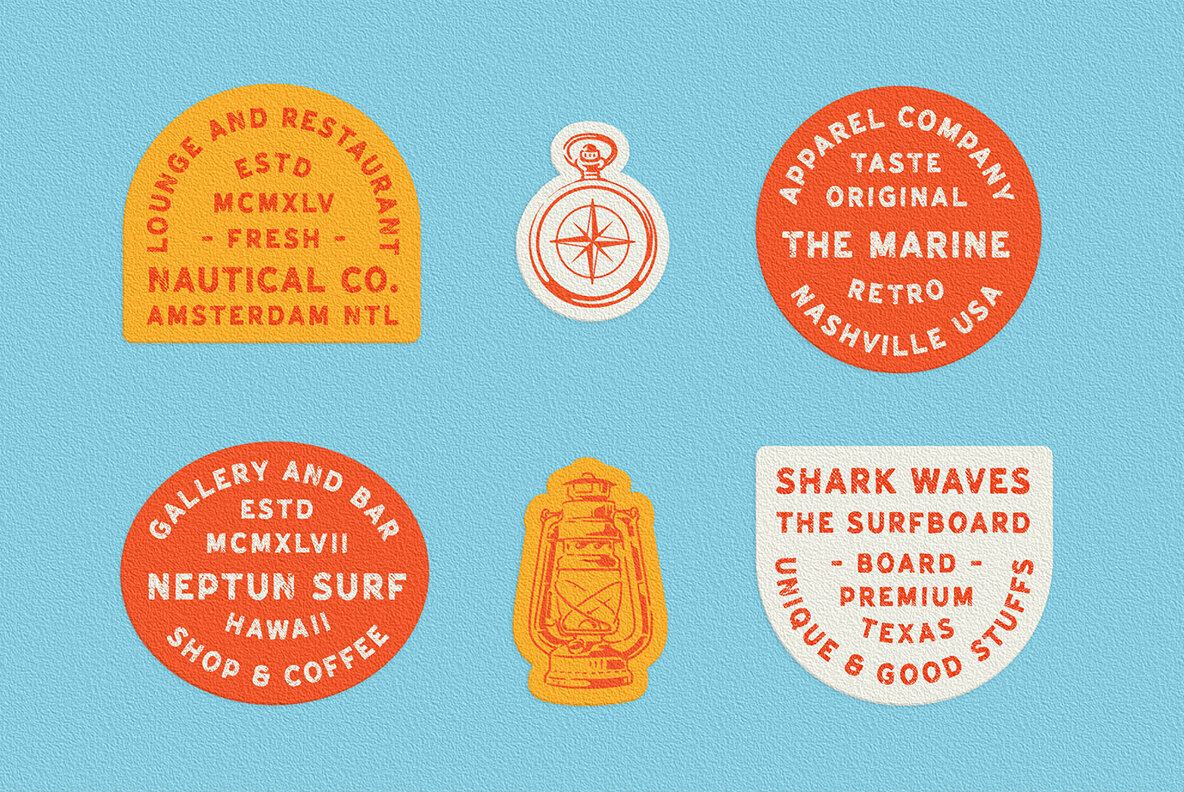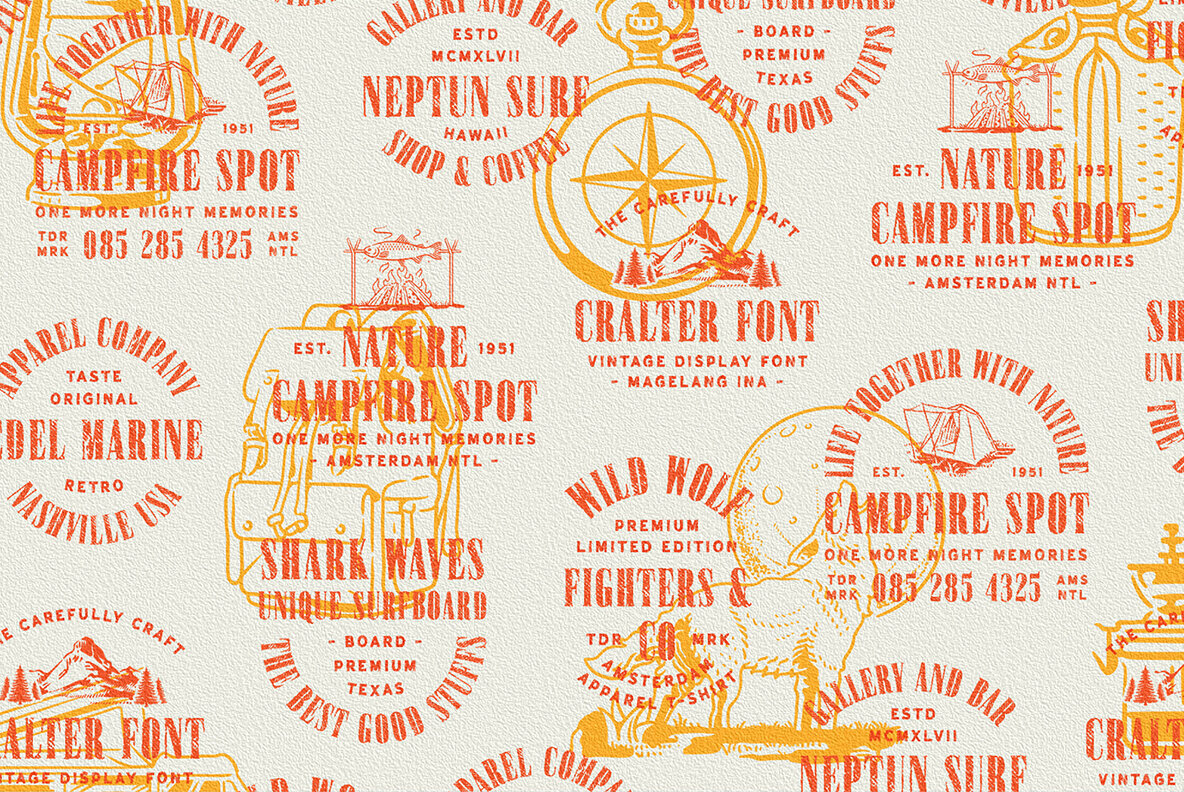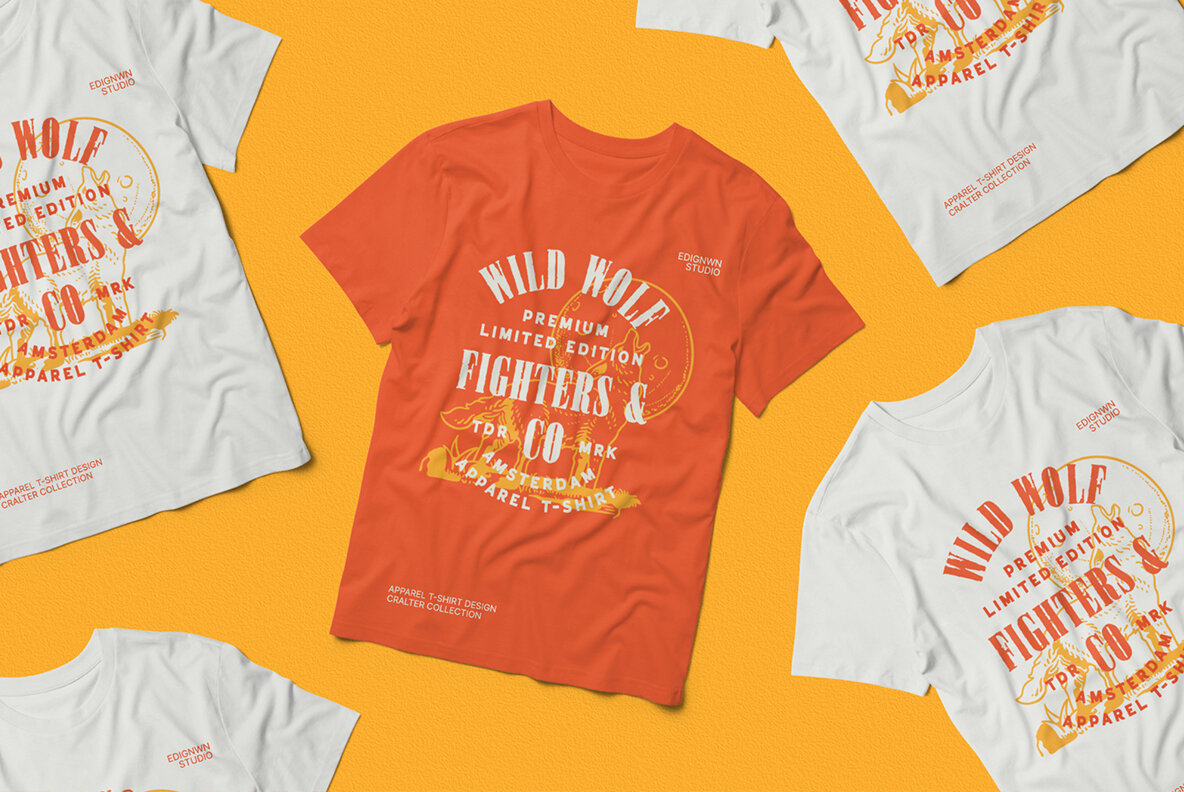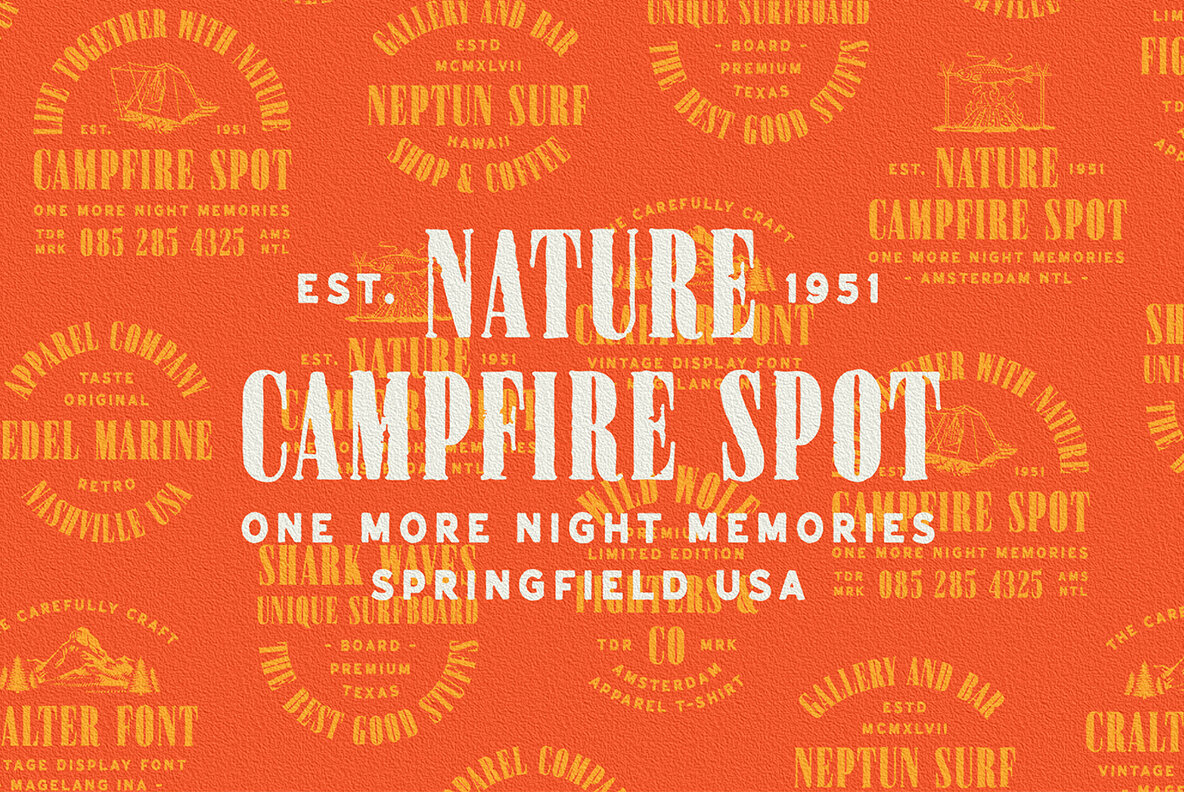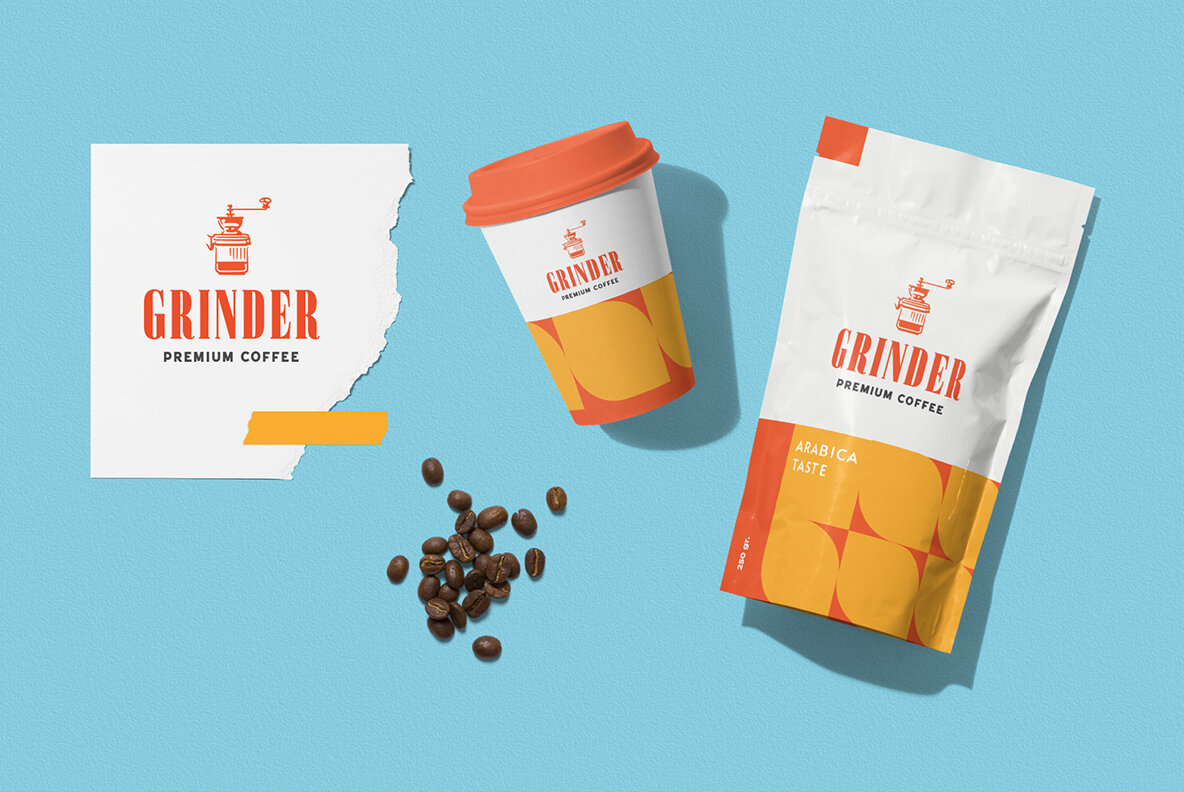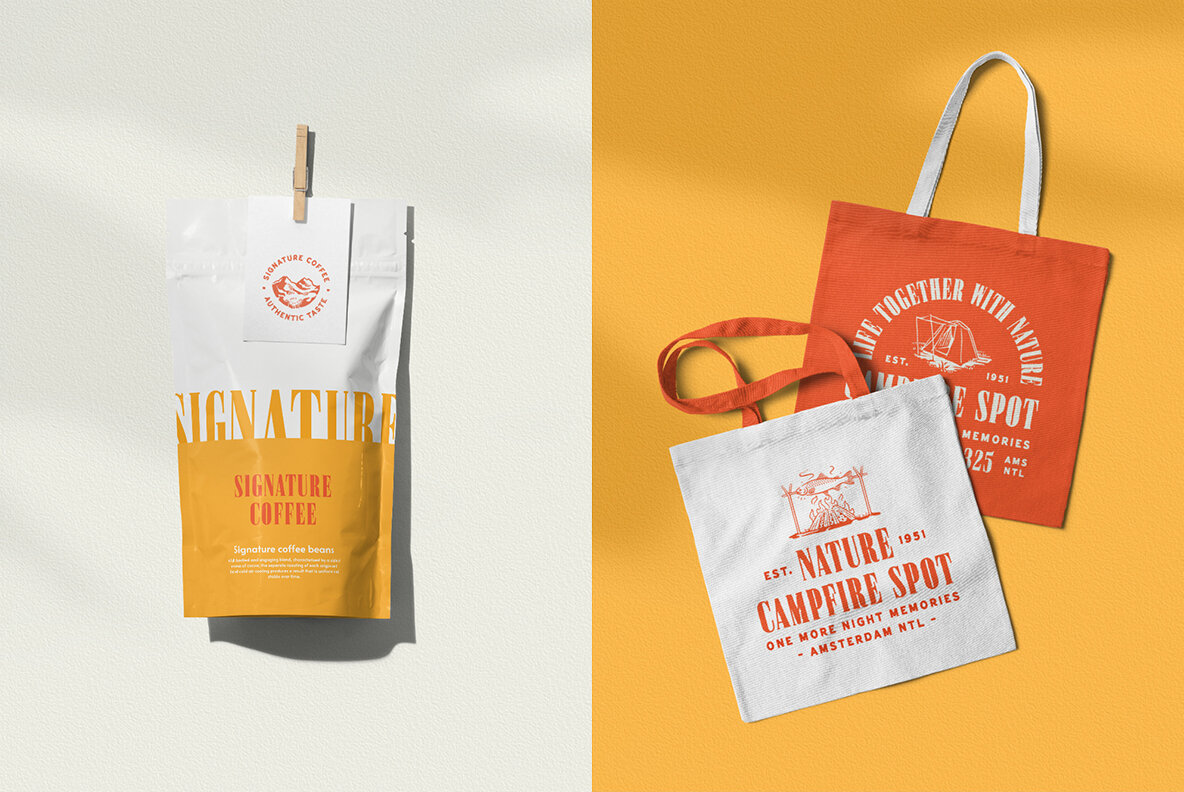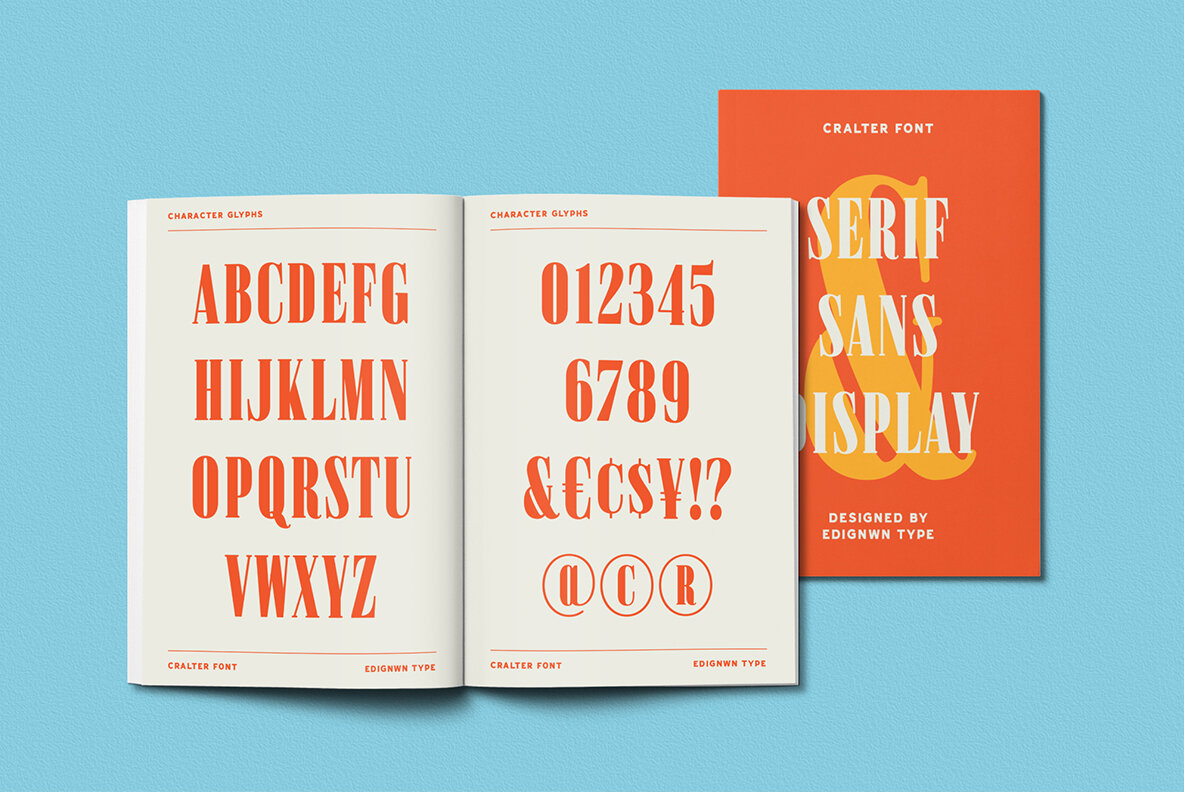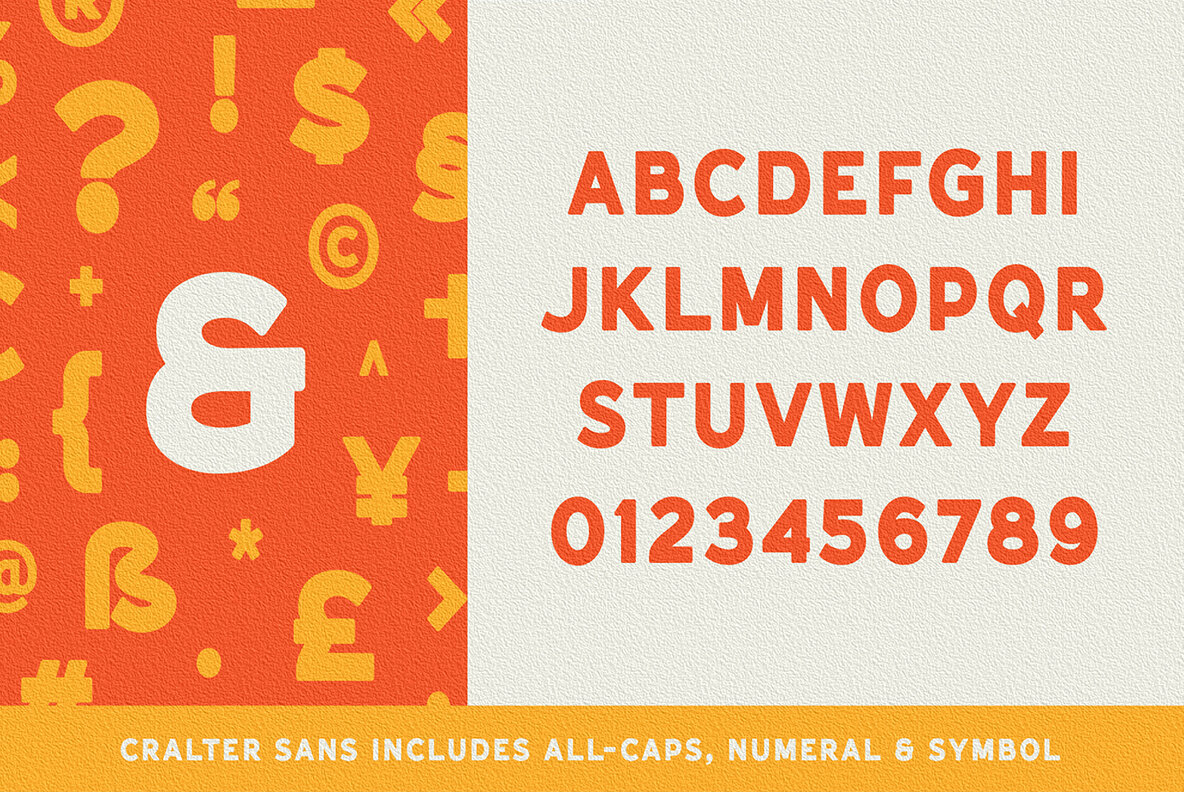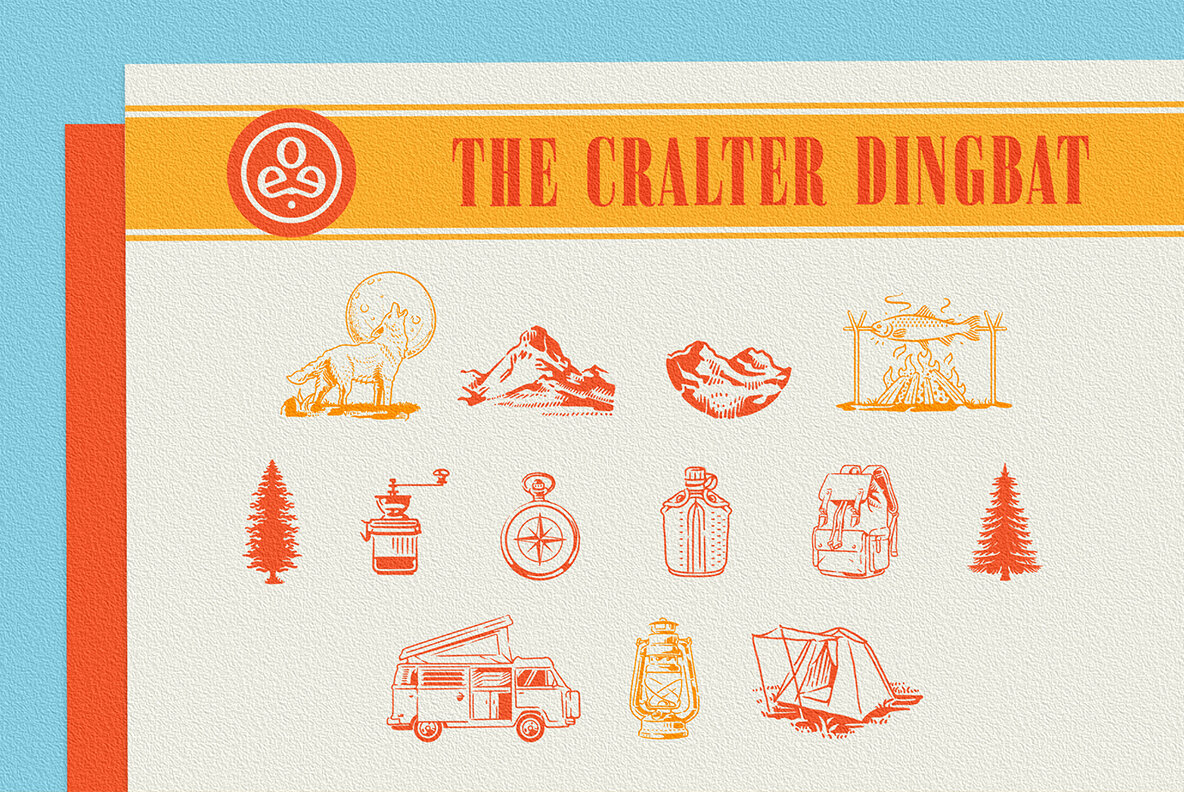
Cralter Font
Delve into the world of classical typography with Cralter, a font collection inspired by the authentic typefaces of vintage posters. This diverse set is built on a harmonious blend of serif and sans serif fonts, each available in four distinctive styles—regular, rounded, rough, and stamp. Cralter is versatile, making it ideal for a wide range of design applications including logos, posters, labels, badges, packaging, and more.Cralter: Timeless Typography Inspired by Vintage Posters
Features
Collection Details